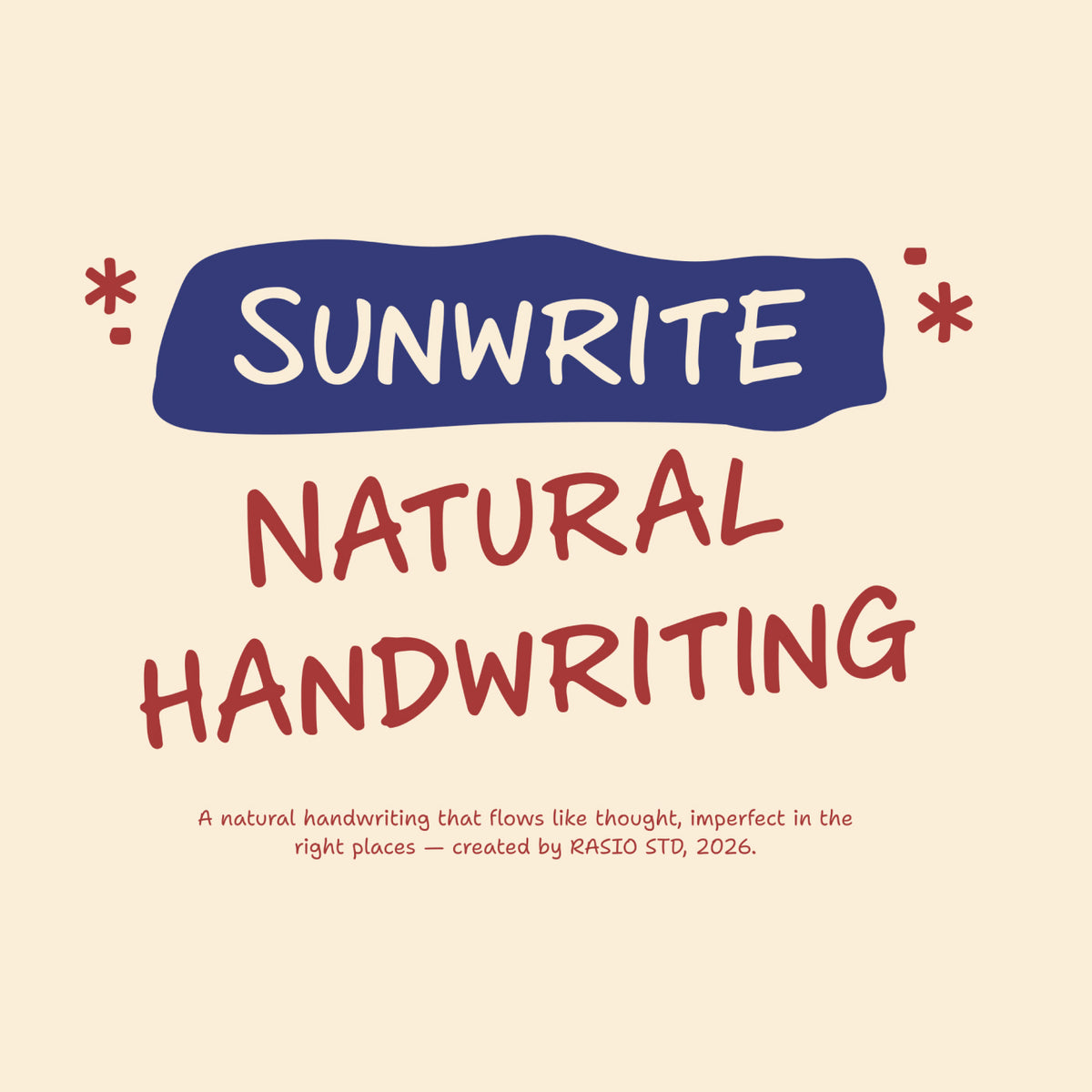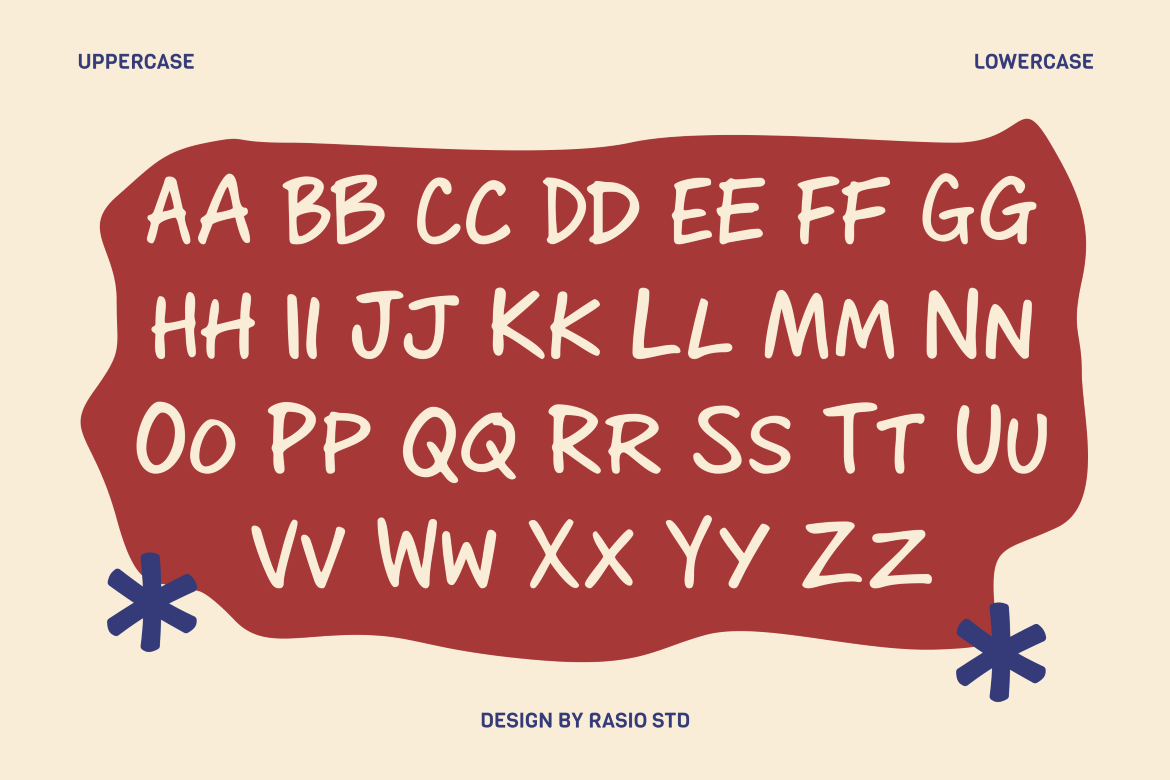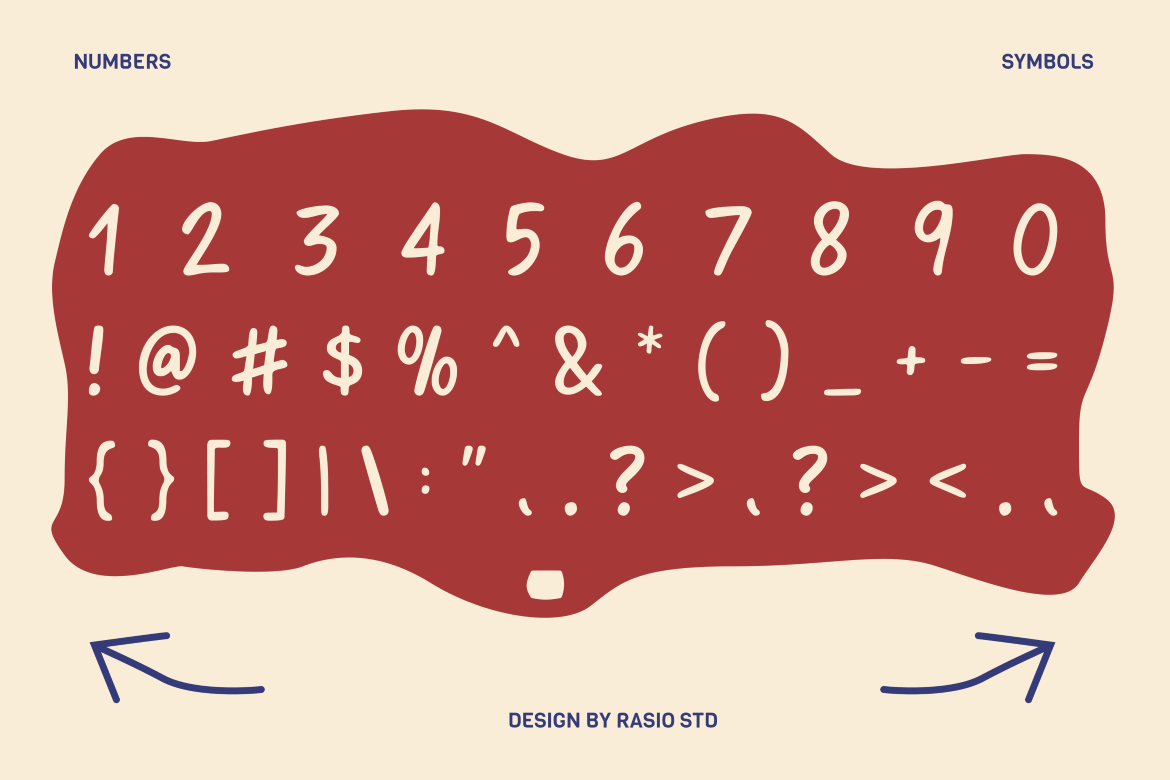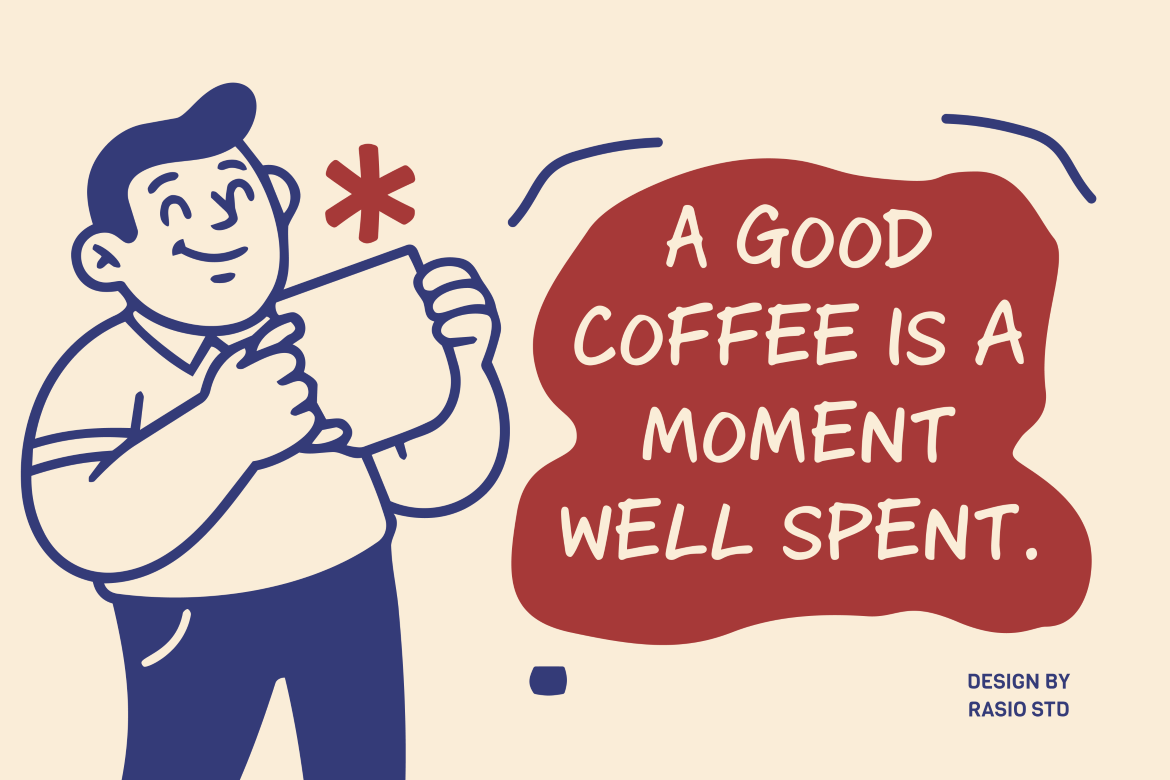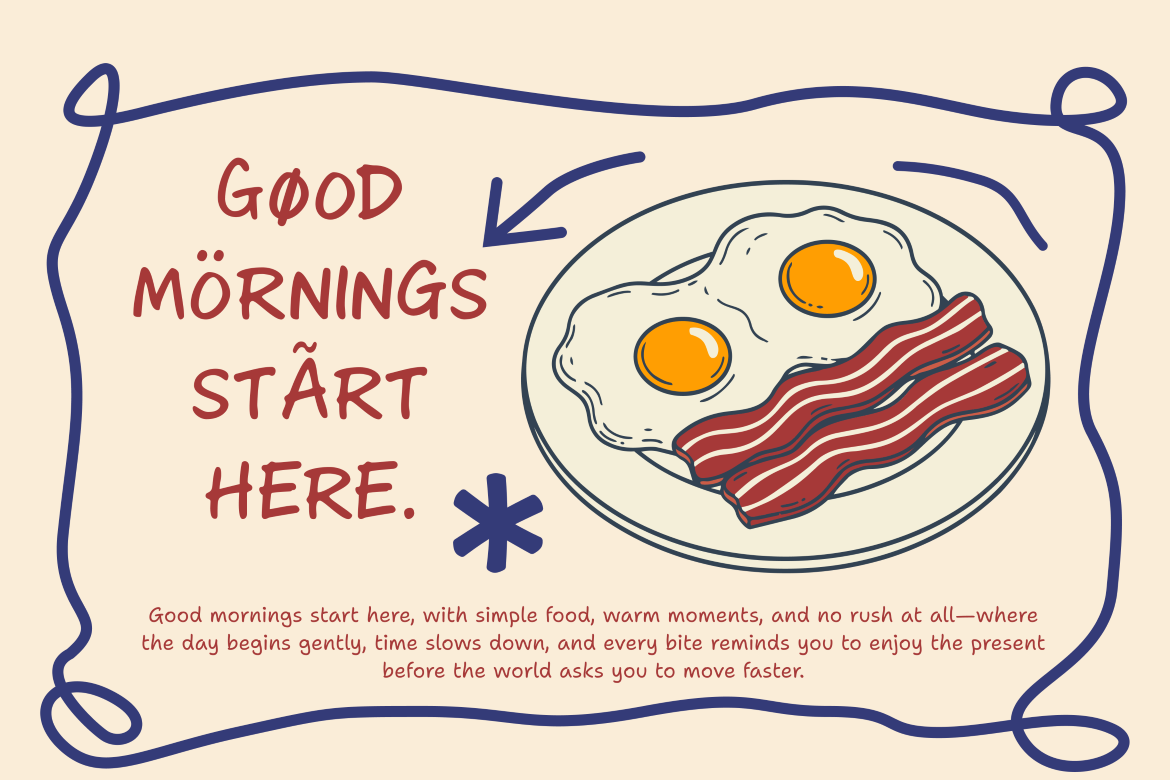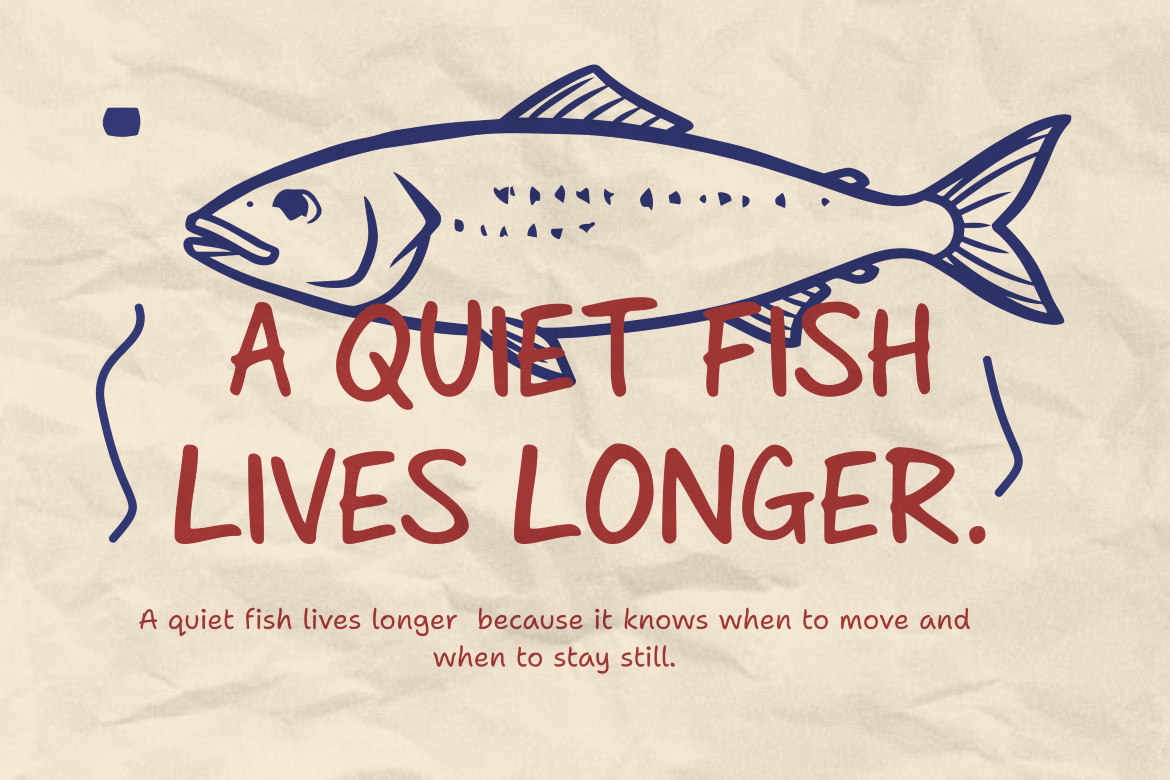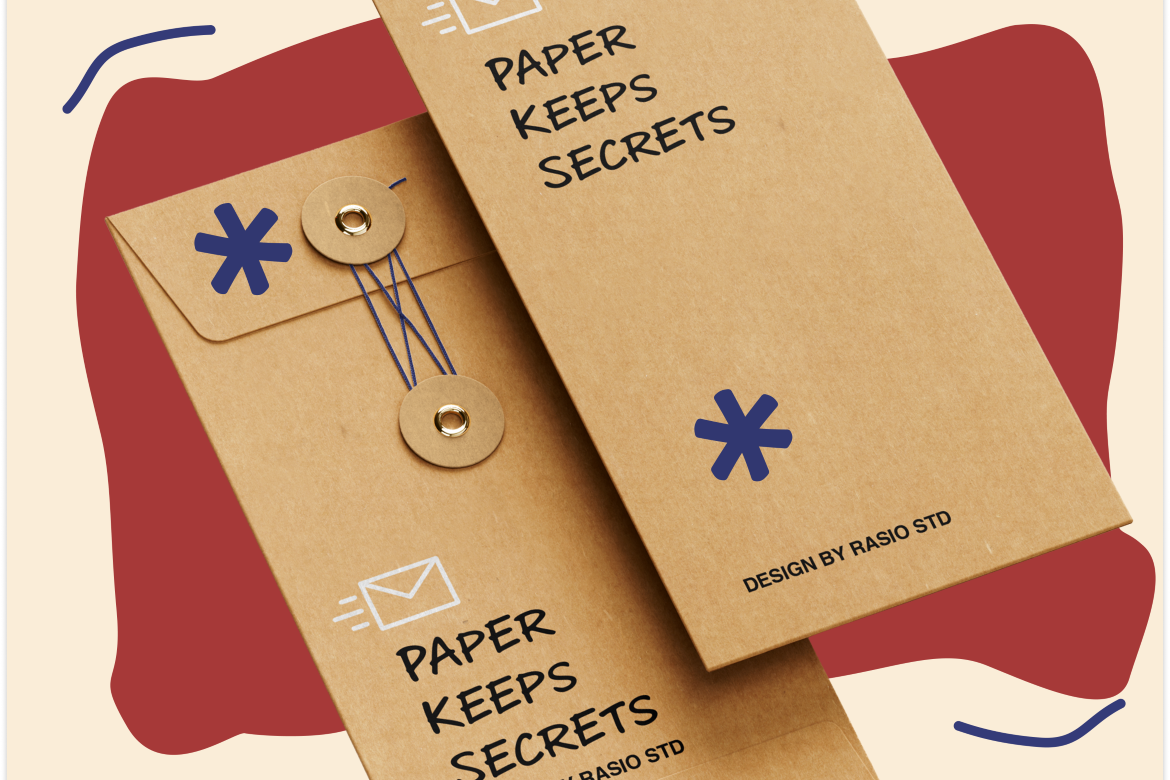
Sunwrite Natural Handwriting Font
Sunwrite showcases a natural handwriting style with soft strokes, playful curves, and relaxed letterforms that feel personal and expressive. Each character carries subtle imperfections and organic movement, creating an authentic pen-written look that feels warm and approachable. The font includes uppercase, lowercase, numbers, punctuation, and stylistic consistency for smooth composition across layouts.
Relevance and Use Cases is perfect for branding projects, lifestyle visuals, café and food packaging, social media posts, children’s designs, greeting cards, planners, stickers, posters, quotes, and any creative layout that benefits from a warm, friendly, and handwritten personality. Perfect for creative projects that need a friendly, human, and effortless visual tone.
Sunwrite Natural Handwriting Font is a handwritten-style typeface featuring soft strokes, playful curves, and relaxed letterforms with subtle imperfections. It includes uppercase, lowercase, numerals, punctuation, and multilingual support, available in OTF, TTF, and WOFF formats.